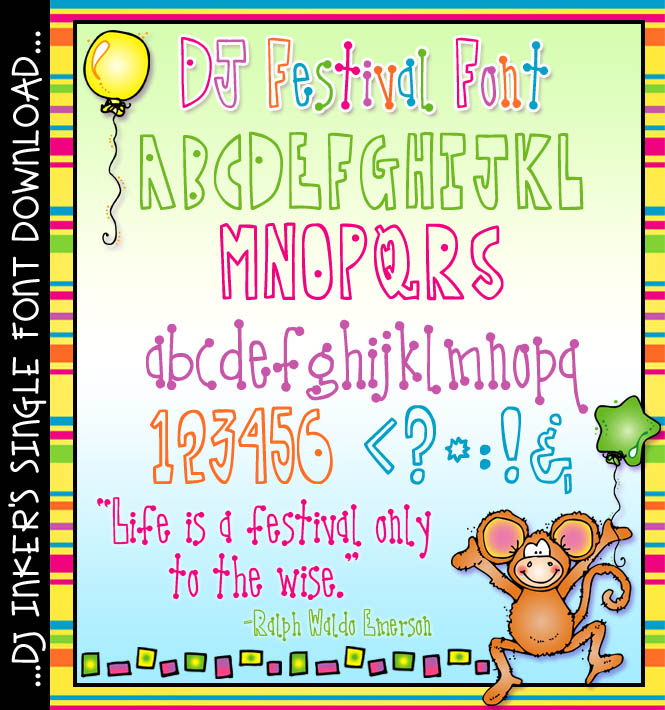
DJ Festival Font Download
Bring a cheerful, bouncy smile to your projects with our 'DJ Festival' font!
Excellent for party invitations & decorations, birthday cards, play
dates or celebrations of any kind. (djdf61)